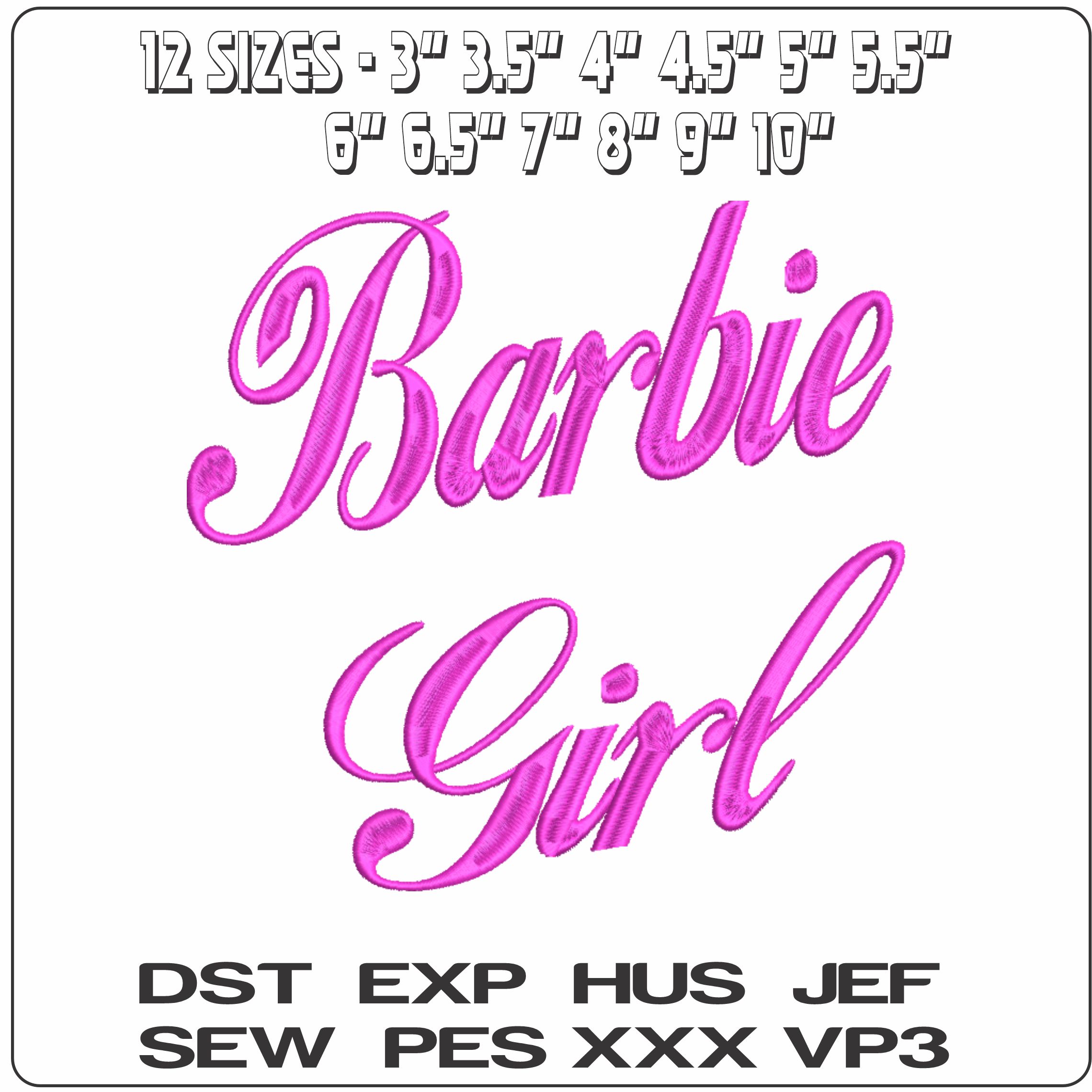
Soft pink “Barbie Girl” script brings a playful, ultra-feminine finish to jackets, totes, tees and personalised gifts.
Bring sweet pink style to a project with this “Barbie Girl” text design, stitched in flowing cursive across a neat two-line layout. The lettering has that unmistakably feminine look, with rounded script that feels playful without being fussy. It suits children’s pieces, Barbie-inspired makes, and grown-up custom items for anyone who likes bold pink with a glossy, girly feel.
This design works especially well on sweatshirt fronts, denim jackets, cotton T-shirts, sleepwear, canvas totes and make-up bags where the script can stay the centre of attention. Because the artwork is all about the wording rather than extra motifs, it reads clearly and gives plain fabrics a quick statement finish. With 12 size options from 3" to 10", it can scale from a small chest detail to a larger framed slogan on the back of a jacket or the front of a cushion.